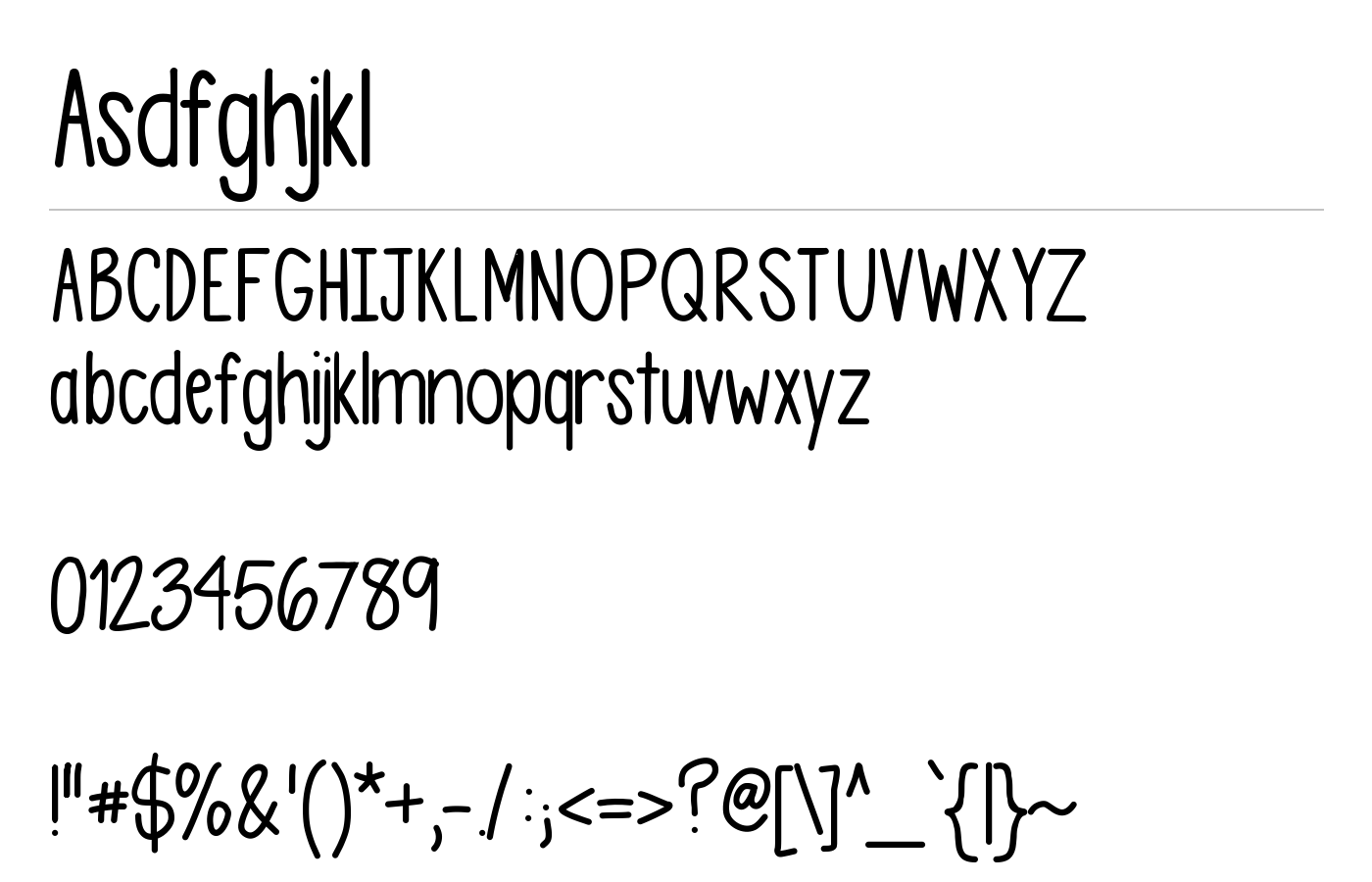
Asdfghjkl Font is a playful and casual sans serif typeface featuring narrow, tall letterforms with a hand-drawn, slightly irregular style. Its light weight and consistent stroke give it an approachable, friendly vibe perfect for informal branding, children’s products, or creative projects that want a warm, inviting look. This font works well in headlines, logos, and packaging where a personal, whimsical touch is desired.
Asdfghjkl Font
About Asdfghjkl Font